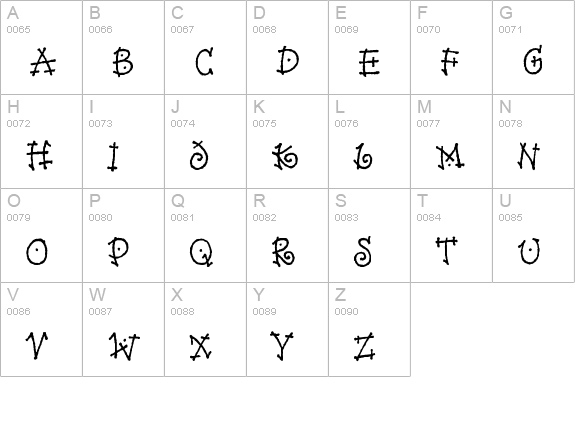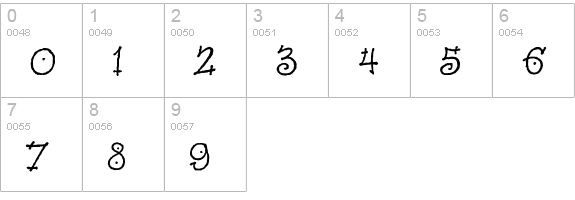
Dancin LET Plain:1.0 Font Details
Dancin LET Plain:1.0 is a captivating and energetic font that brings movement and rhythm to your designs. This font exudes a sense of excitement and joy, making it perfect for projects that require a lively and dynamic touch. With its playful and whimsical letterforms, Dancin LET Plain:1.0 adds a delightful charm to any text. Each character is carefully crafted with flowing lines and a unique dance-like quality, creating a sense of motion and elegance. Whether you are designing a party invitation, a poster for a dance performance, or a logo for a dance studio, Dancin LET Plain:1.0 is the perfect choice to bring your designs to life. Its versatility allows it to be used in a wide range of projects, from digital media to print materials. The best part is, Dancin LET Plain:1.0 is completely free! You can easily download this font at FontsMarket.com, where it is available for anyone to use and enjoy. Embrace the freedom of creativity and let Dancin LET Plain:1.0 be the star of your designs. So, whether you are a professional designer or just someone looking to add a touch of fun to your personal projects, Dancin LET Plain:1.0 is here to inspire and delight. Download it now and let your creativity dance to its own beat.